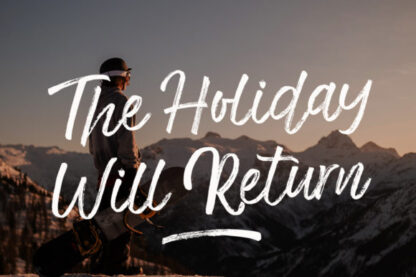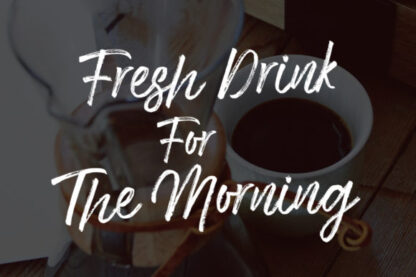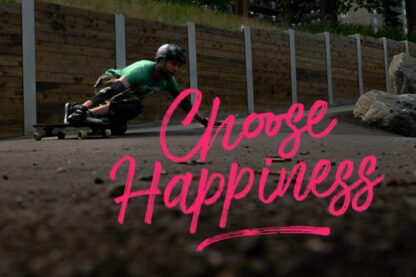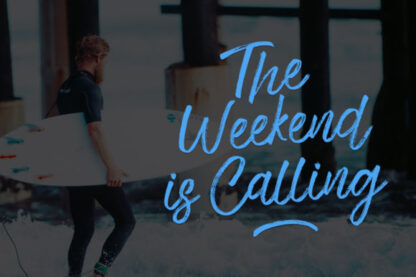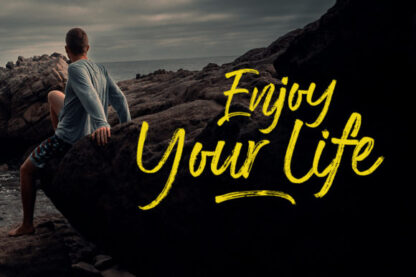
Choose Time Font
Choose Time is a cursive brushed handwritten font. Masterfully designed to become a true favorite, this font has the potential to bring each of your creative ideas to the highest level!